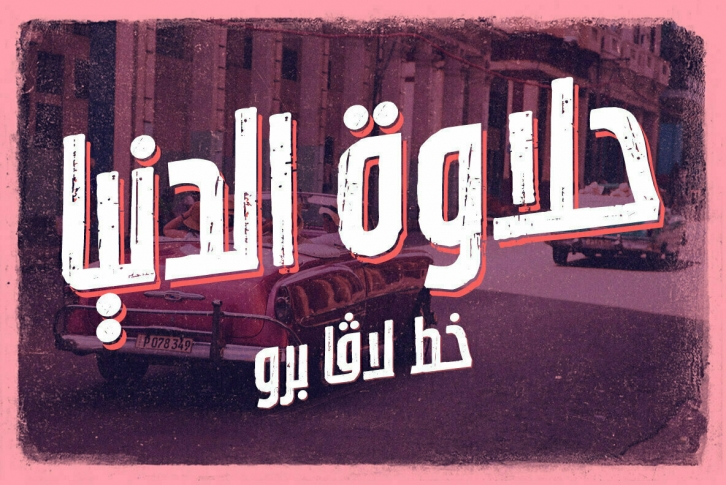
Lavah Pro is the upgrade from old version of Lava Arabic 1.0. It's Arabic condensed/narrow with grunge and rough style for vintage style posters, brands or ads maybe for food ads or movie poster.
Lavah Pro is supported by OpenType Features with many Stylistic Alternates and Discretionary Ligatures and It's support Arabic, Persian, Urdu and Latin.